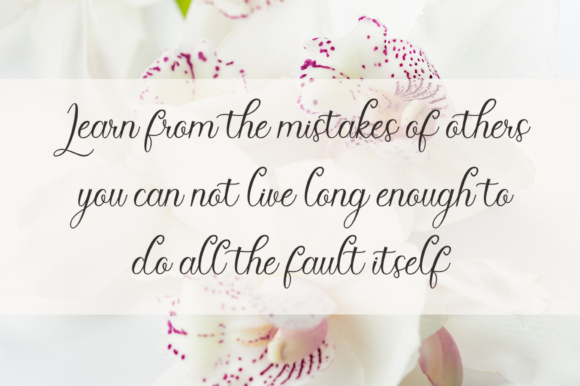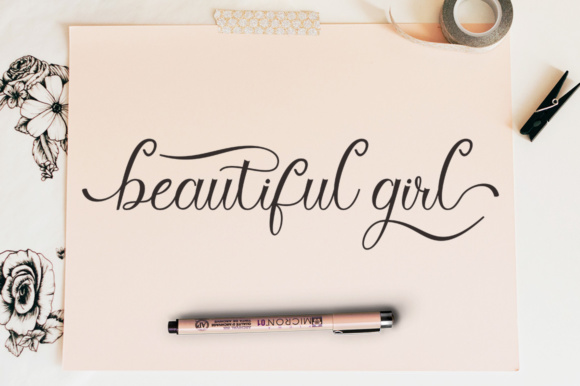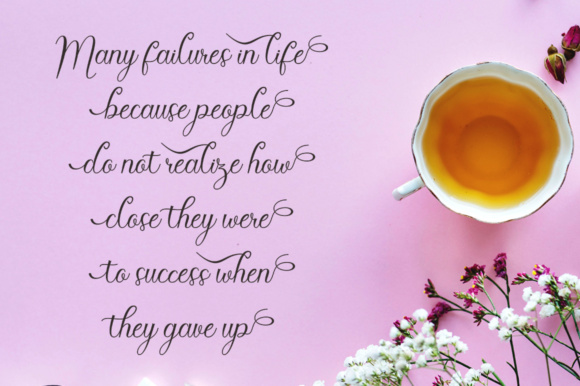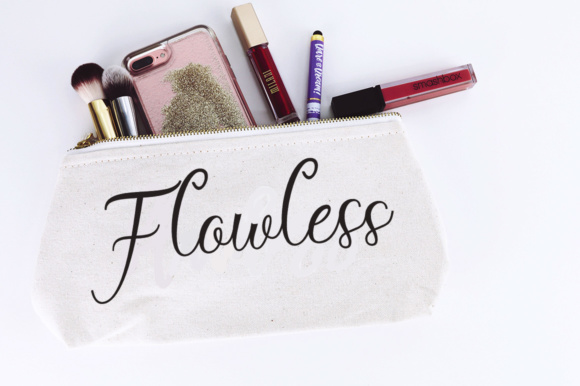
Cynthia Font
About Cynthia Font
The Cynthia is a modern calligraphy script. It has a casual yet elegant look. Its pretty swashes make it the perfect font for logos, invitations, branding, headlines, and much more